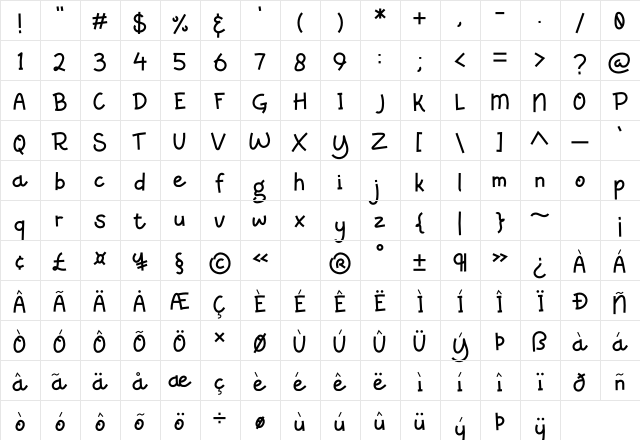
Caramelia Regular
Design Context for Caramelia Typeface
Caramelia is a composed and adaptable typeface that performs quietly and consistently across a wide range of design contexts.